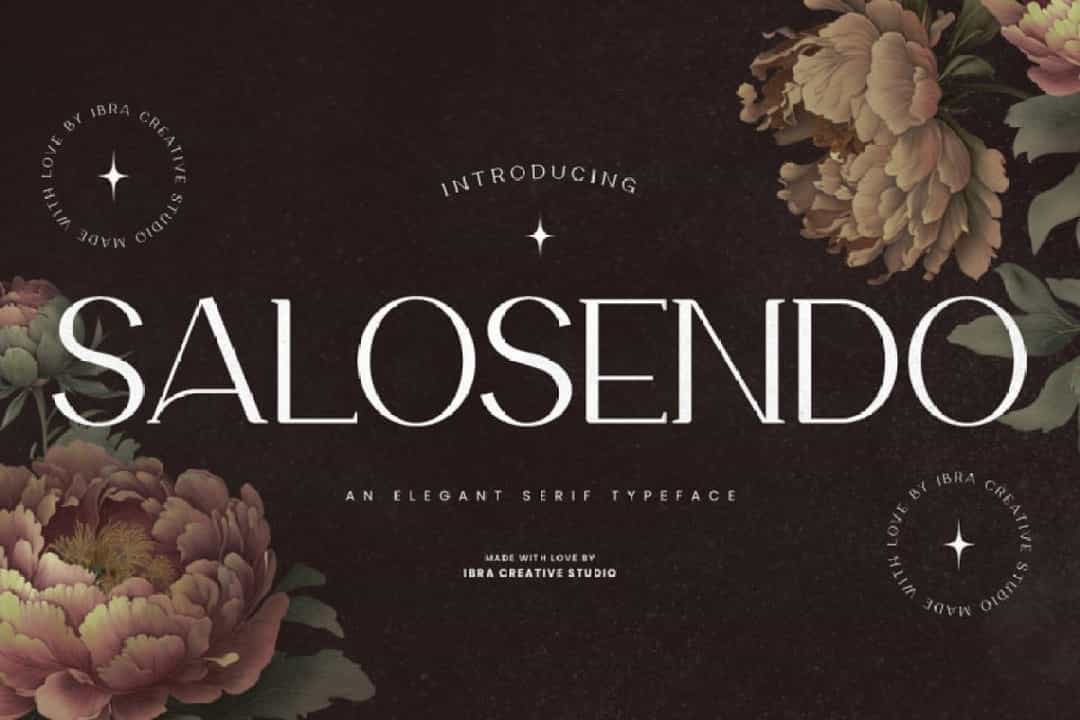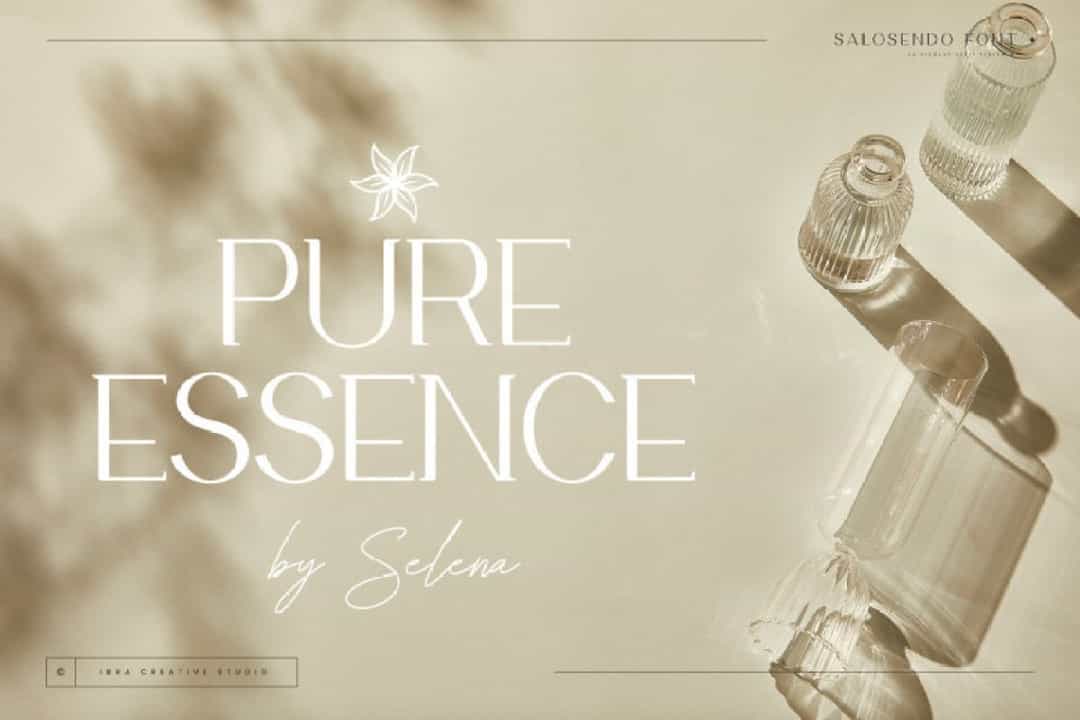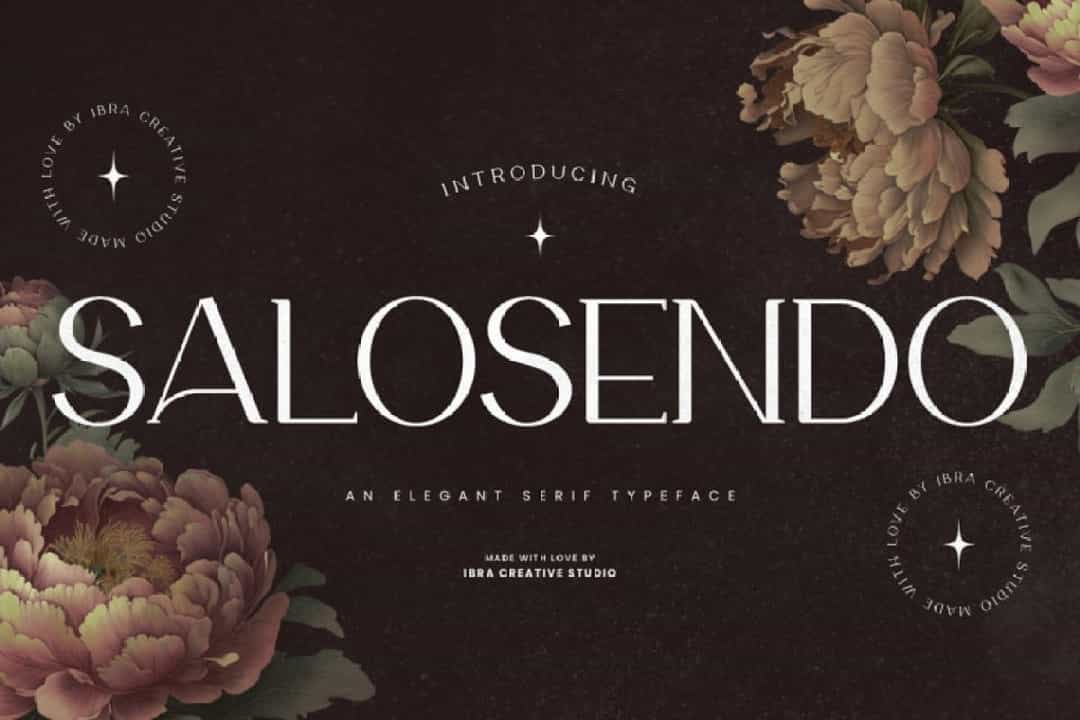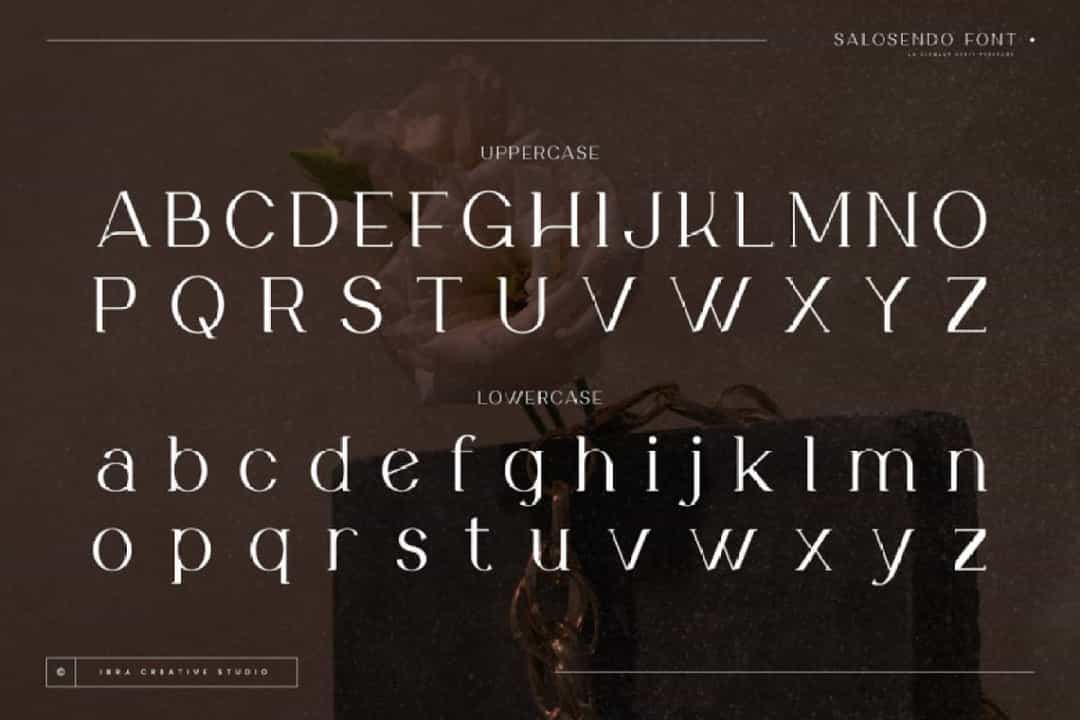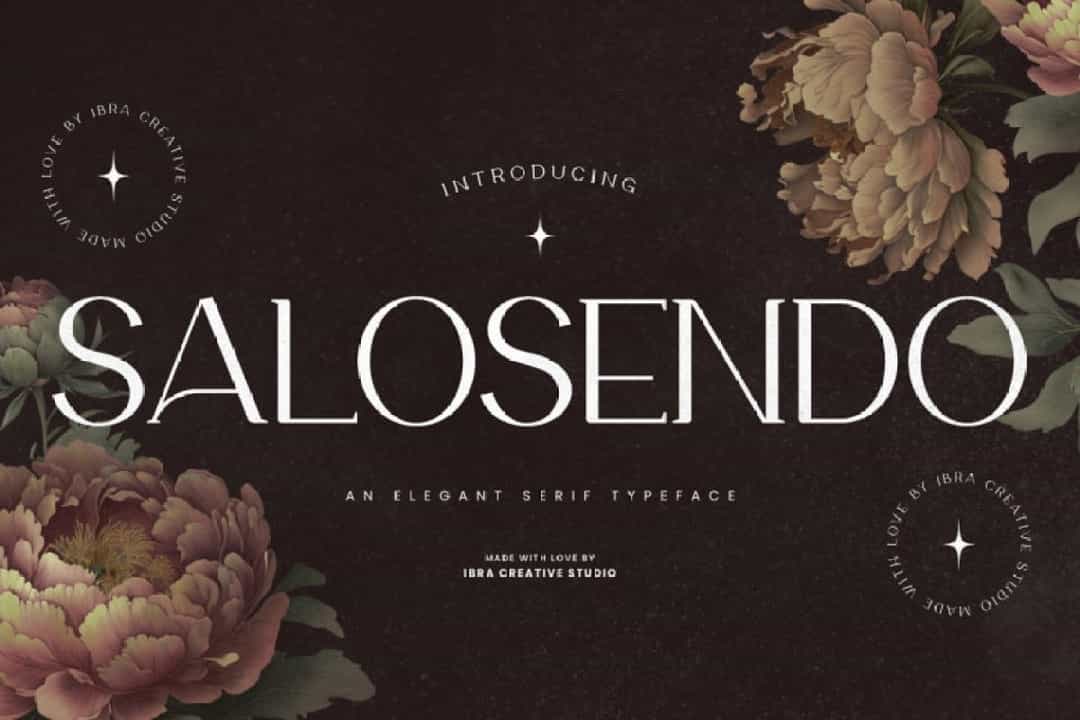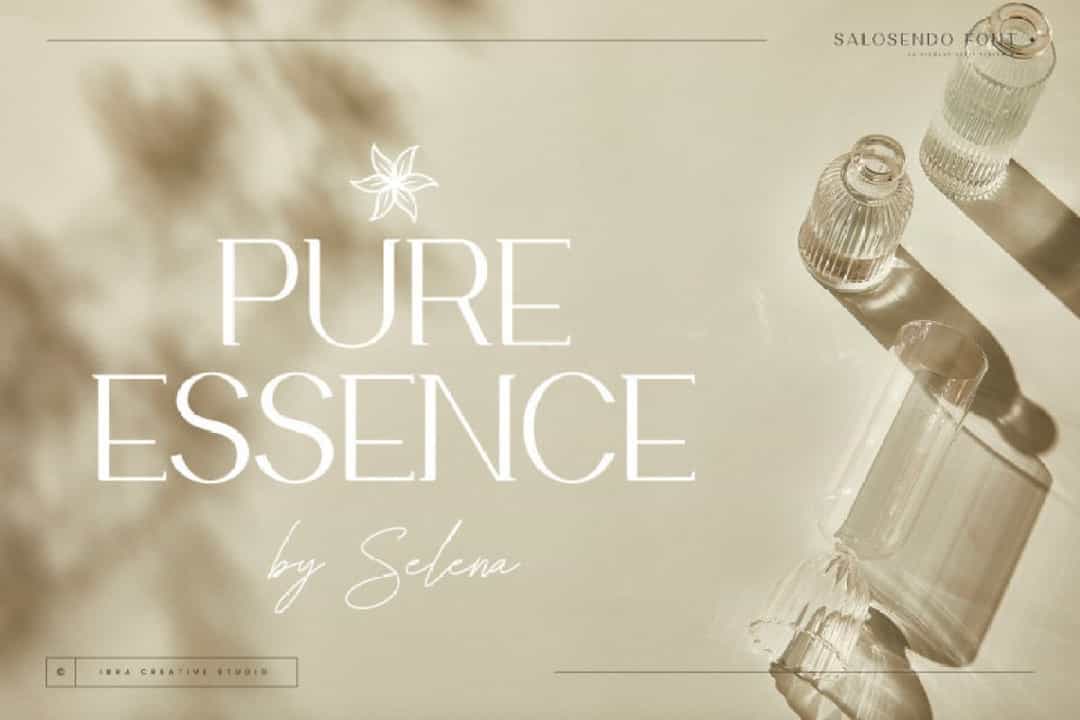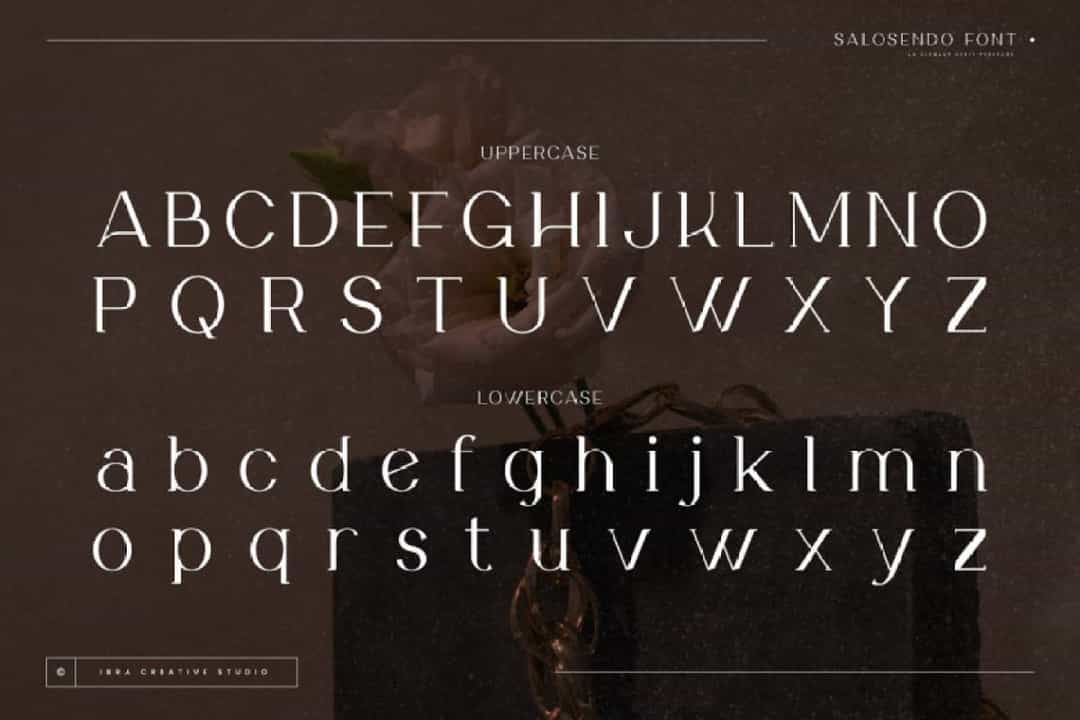
Salosendo, an elegant serif font, exudes luxury in every stroke. Boasting beautiful letters with proportions that balance perfectly, Salosendo brings classic elegance into any design project. Subtle serifs help convey heritage while simultaneously being modern enough for use across various design solutions.